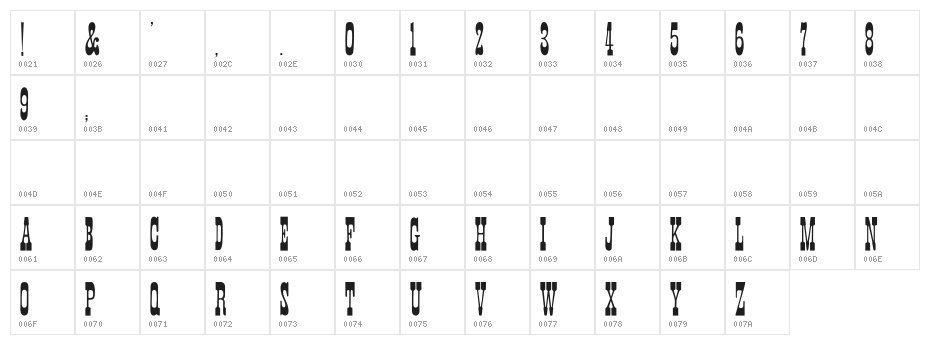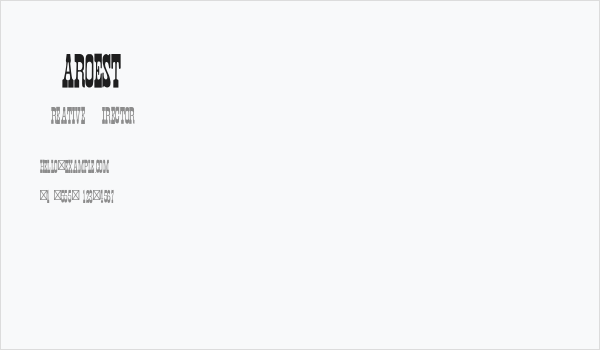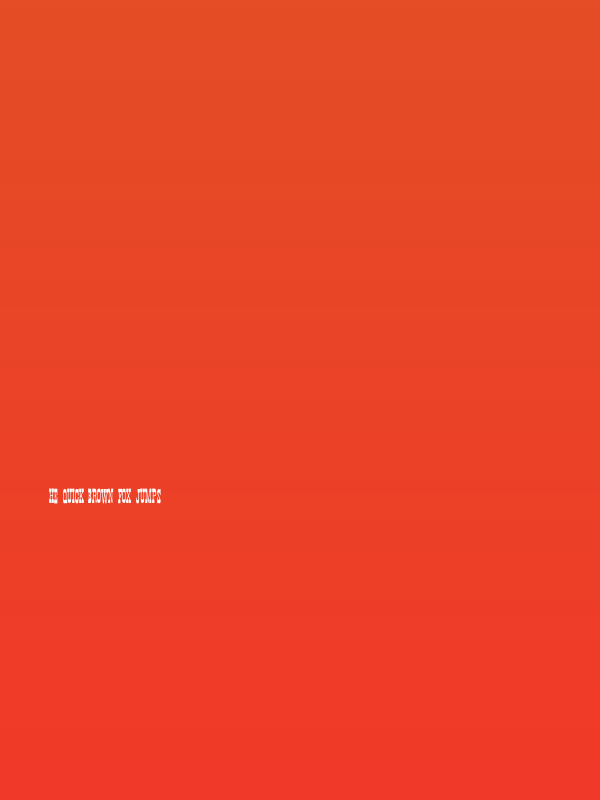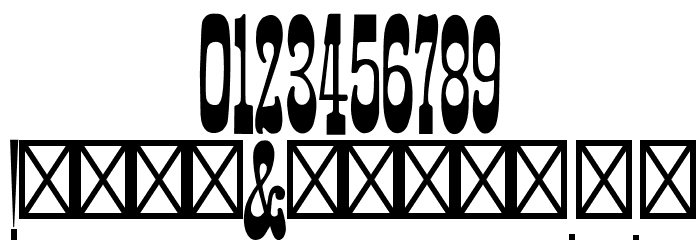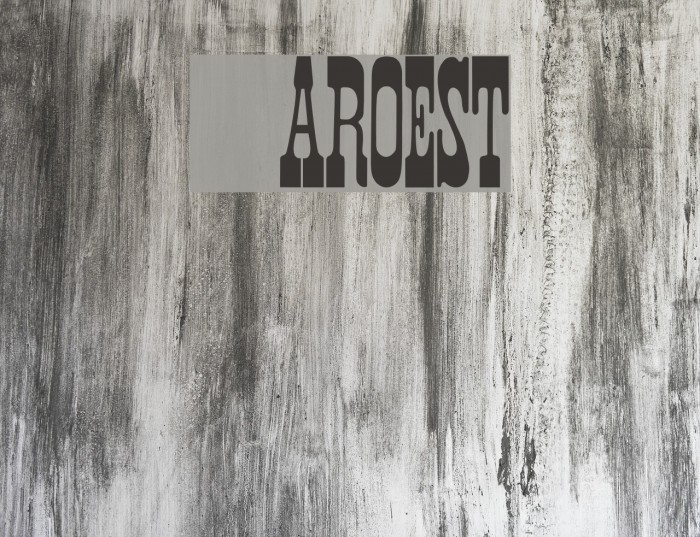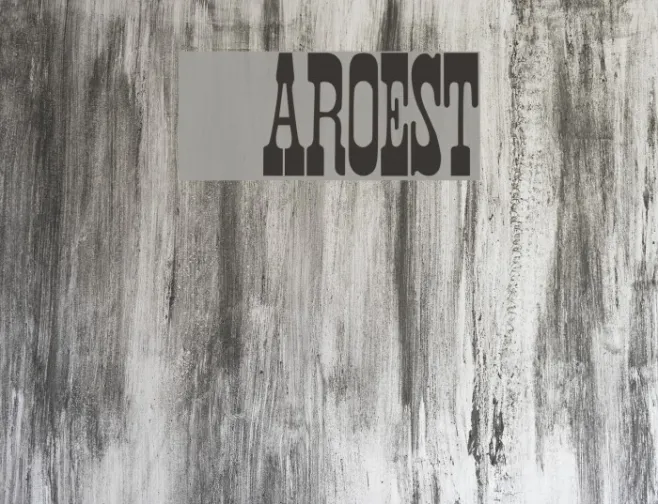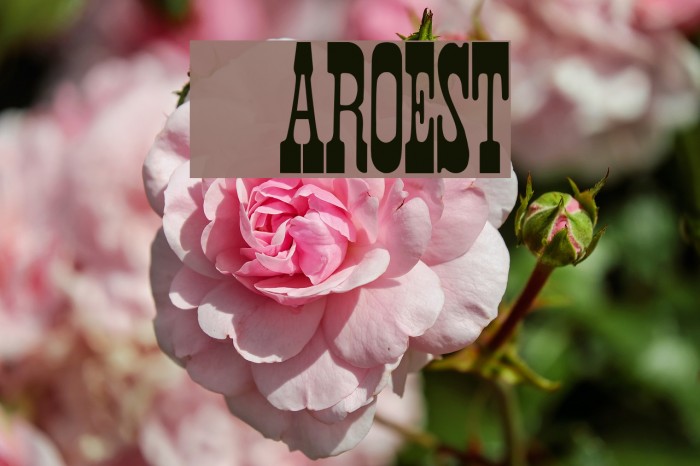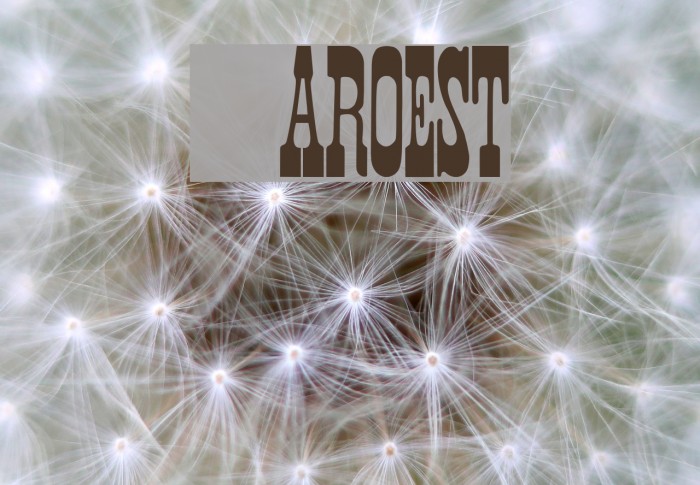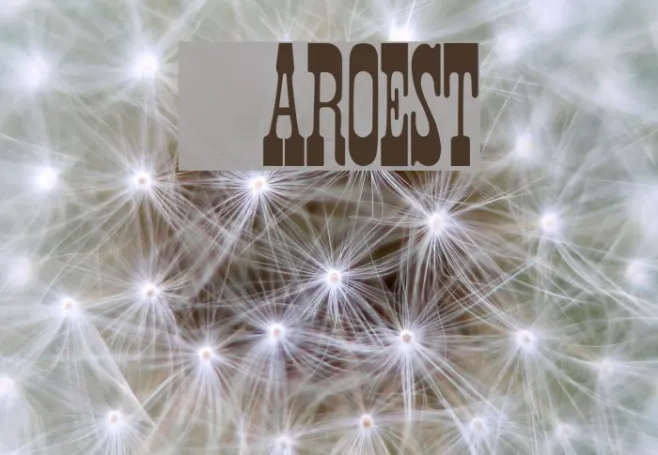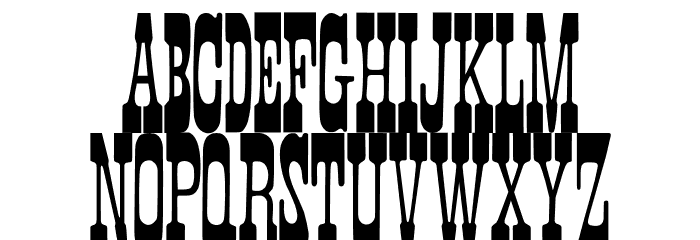
Faroest Font
Faroest Description
This font features bold, slab serif characters with a strong, impactful presence. The uppercase letters are particularly striking, with thick vertical lines and slightly narrower horizontal strokes, giving them a sturdy and robust appearance. The numbers follow a similar style, maintaining consistency across the character set. The font's design is reminiscent of vintage Western typography, often seen in old posters and signage. Its boldness and unique character make it stand out, ideal for projects that require a touch of nostalgia or a strong visual impact.
| Proposed Projects | Ideal for vintage-themed posters, signage, branding, and any project requiring a strong, nostalgic aesthetic. |